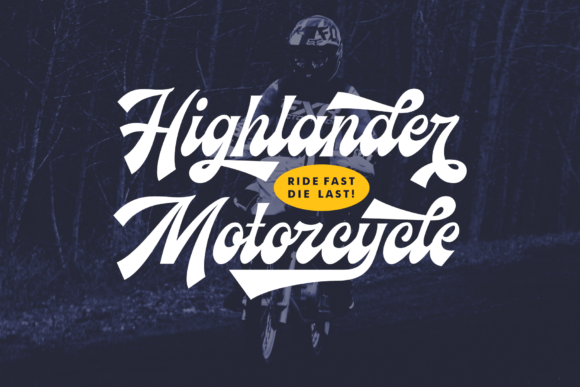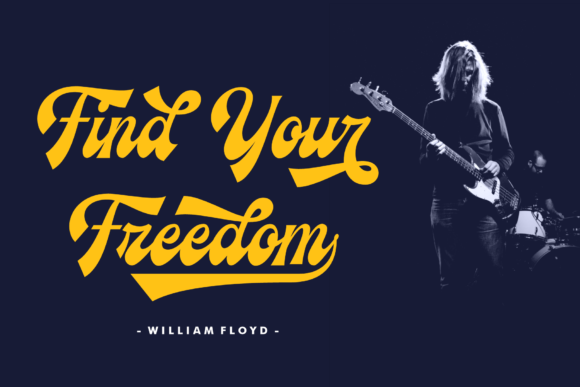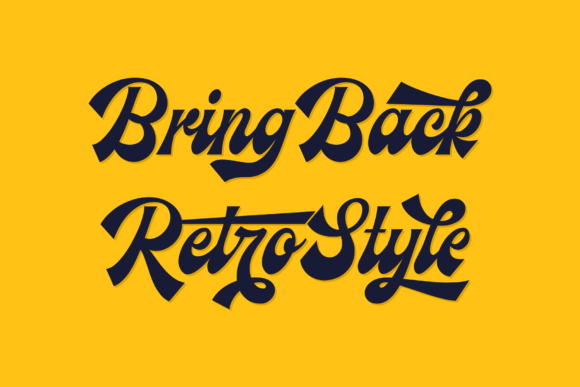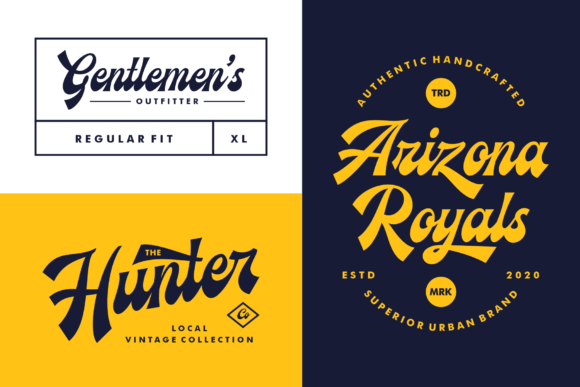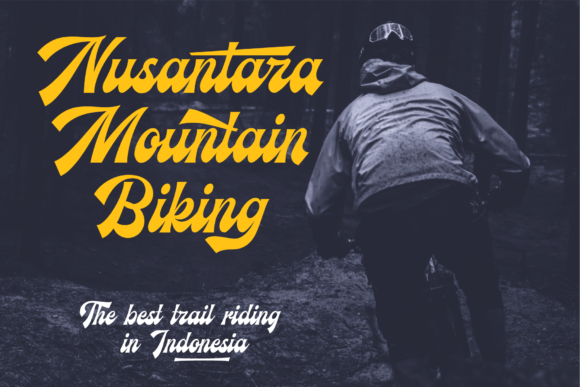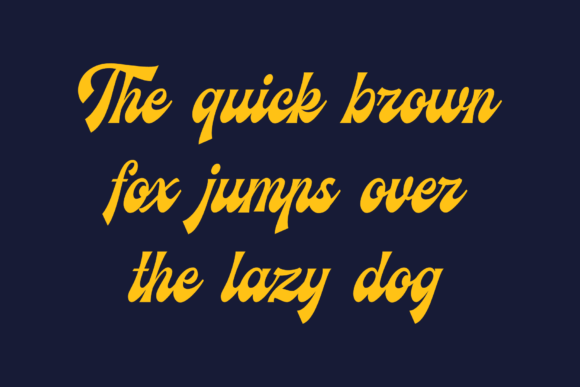
The Ecentric Font: A Bold, Handwritten Favorite for Your Designs
I still remember the design project that led me to discover the Ecentric font. I was working on a retro-themed branding campaign for a small business, and I was struggling to find the perfect font to capture the casual, down-to-earth vibe they wanted. That’s when I stumbled upon Ecentric, a bold handwritten font that quickly became my go-to choice. Its unique charm and versatility won me over, and I’ve been using it ever since.
An Honest Review of Ecentric Font
What I Love About Ecentric ✨
- ✅ Unique Character: Ecentric has a distinct, handcrafted feel that sets it apart from other fonts.
- ✅ Casual Charm: Its down-to-earth vibe makes it perfect for designs that need a friendly, approachable tone.
- ✅ Readability: Despite being a bold font, Ecentric remains surprisingly readable, even at smaller sizes.
- ✅ Versatility: It works beautifully in a wide range of design contexts, from branding and advertising to packaging and more.
While Ecentric is an excellent font, it’s not without its limitations. For example:
- ⚠️ Limited Formality: Ecentric’s casual nature makes it less suitable for formal or corporate designs.
- ⚠️ Glyph Support: While Ecentric has a wide range of glyphs, some users may find that it lacks certain special characters.
Ecentric font comes with a range of OpenType features and glyphs that can enhance your designs. These include:
| Feature | Description |
| Ligatures | Swashes and ligatures that add a touch of elegance to your text. |
| Stylistic Alternates | Alternative characters that offer different styles and variations. |
| Glyphs | A range of special characters, such as symbols and icons, that can add visual interest to your text. |
The Backstory Behind Ecentric
Ecentric was designed with the goal of creating a bold, handwritten font that’s both versatile and charming. The designer aimed to craft a font that would be perfect for designs that need a personal touch, such as branding, packaging, and advertising. With its unique character and casual charm, Ecentric has become a favorite among designers and crafters.
Q: What makes Ecentric font unique?
A: Ecentric’s unique character and casual charm set it apart from other fonts. Its handcrafted feel and versatility make it perfect for a wide range of design contexts.
Q: Is Ecentric suitable for body text?
A: While Ecentric is a beautiful font, it’s best used as a display font or for headings. Its bold nature makes it less suitable for long blocks of body text.